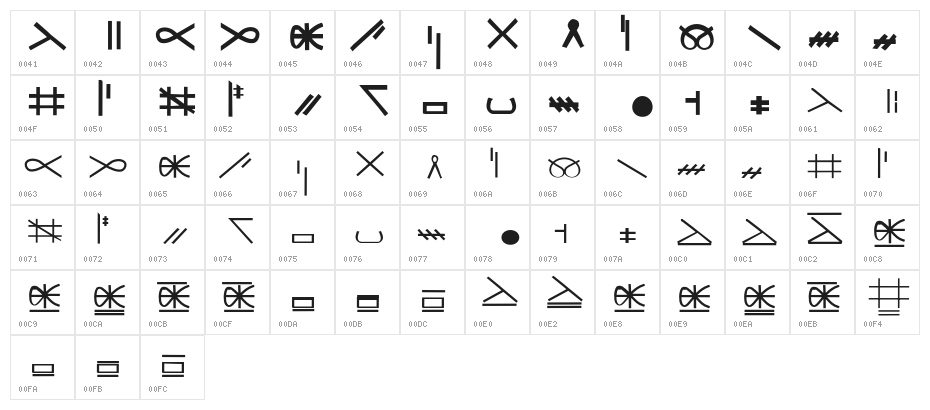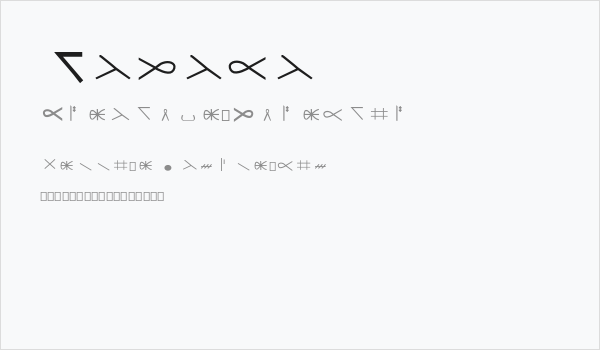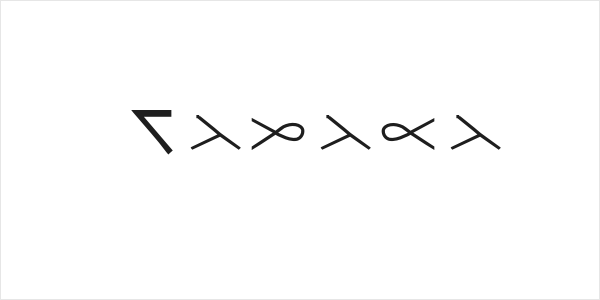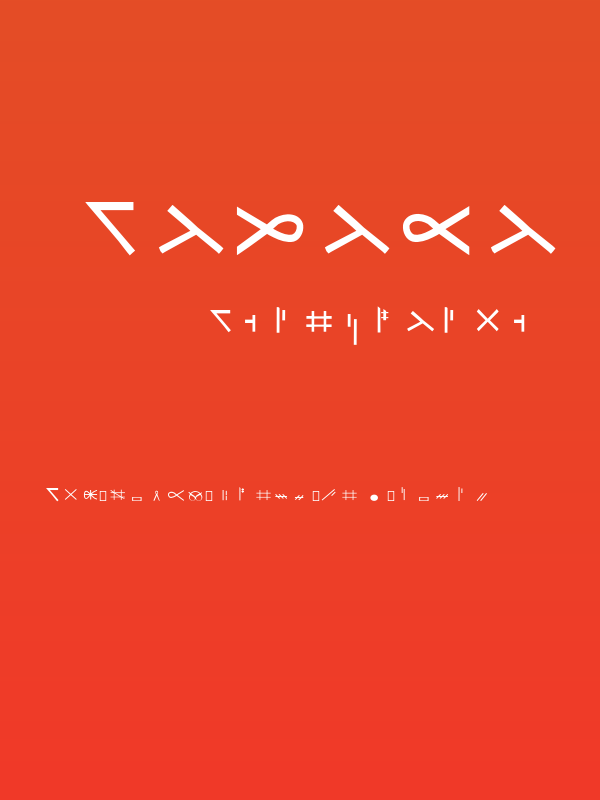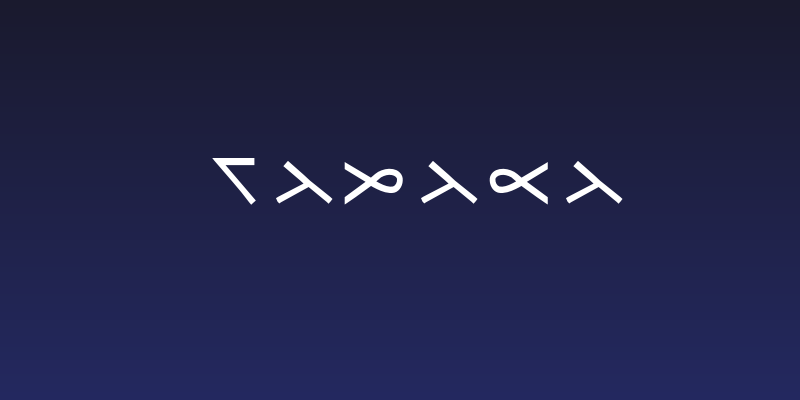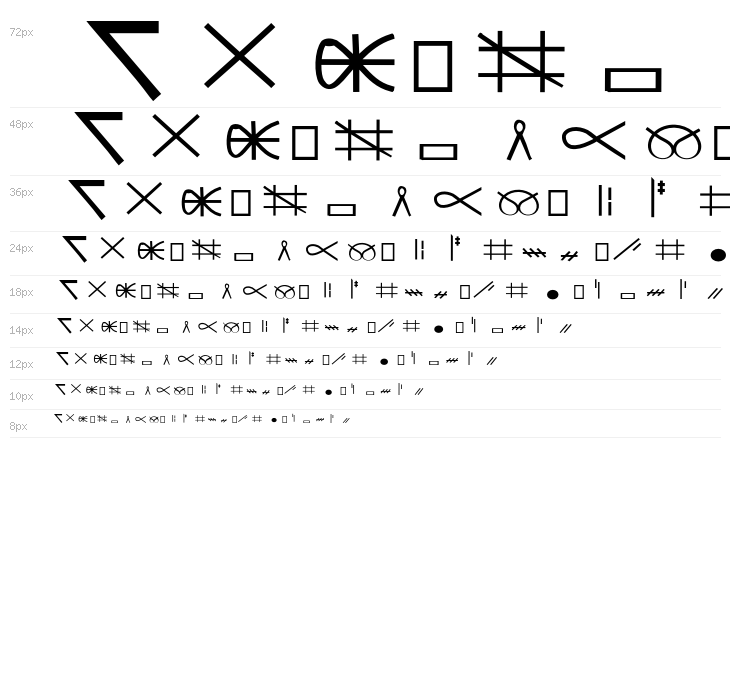
Tadaca Font
Tadaca is a very original font. All this typography is based on latin letters, but i wanted to make them easier, even if some of them are designed according to what they make me feel. I'm 15 years old and it s my first one, i worked hard on it ! Enjoy !
| Stile generale | Abstract, Artistic |
| Caso d'uso | Decorative elements, Abstract art |
| Progetti proposti | This design could be used for abstract art projects or as a decorative element in graphic design, where traditional readability is not required. |